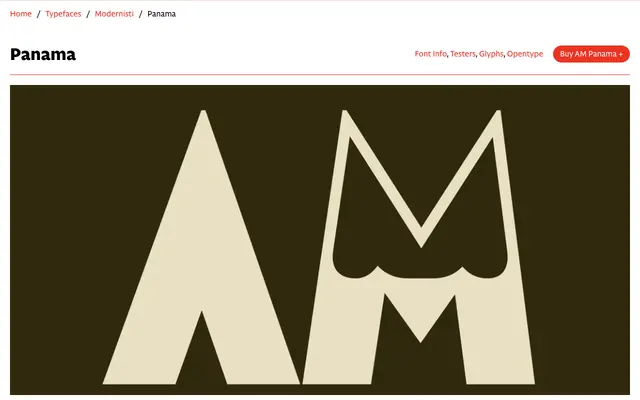
AM Panama
CAST · Giulio Galli · 2024
A digital revival of a 1930s Italian wood type, bringing its Art Deco geometry and idiosyncratic detailing into a single-weight display face.
Drawn by Giulio Galli from wood type specimens held at the Tipoteca Italiana Fondazione, AM Panama restores a monolinear sanserif originally cut by the Xilografia Meneghello e Belluzzo in six body sizes during the 1930s and 40s. Its geometry is sharpened by pointed apexes, diamond-shaped stroke endings, exaggerated apertures and a missing crossbar on the A, giving it a loud, distinctive rhythm at display sizes. The original companion design Suez, a semi-outlined version of the same letterforms, is included as a stylistic set via OpenType.
A single-weight geometric sans revival drawn from 1930s–40s Art Deco wood type, with idiosyncratic expressive details that push it firmly into display territory rather than workhorse sans-serif.